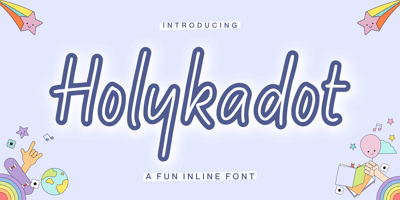
Holykadot Font Family was designed by Fachrizal Yusuf and published by Allouse Studio. Holykadot contains 1 styles and family package options. Proudly Presenting, Holykadot A Fun Inline FontHolykadot is perfect for any titles, logo, product packaging, branding project, megazine, social media, wedding, or just used to express words above the background.Holykadot also come with Multi-Lingual Support.Enjoy the font, feel free to comment or feedback, send me PM or email. Thank You!